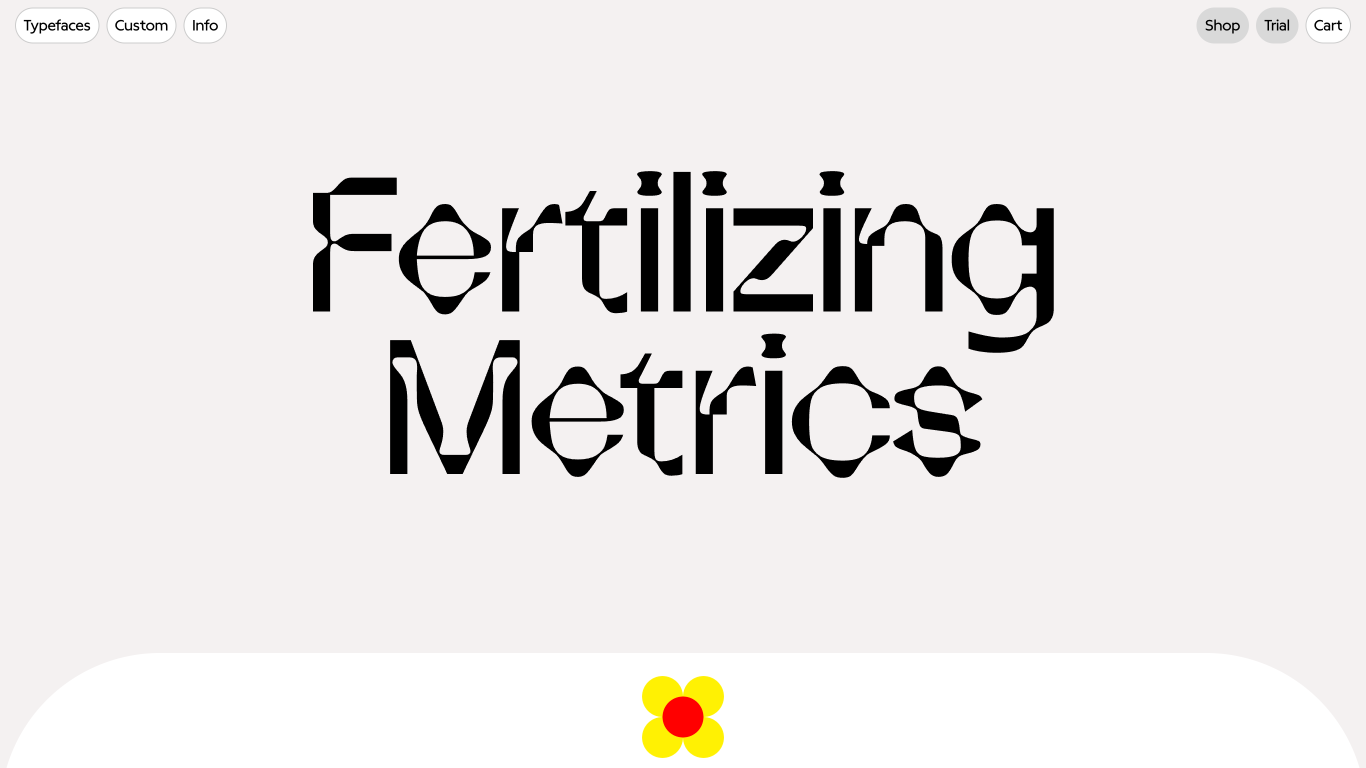
Bloom Type Foundry
Sweden
2021
Bloom Type is a flourishing type foundry based in Stockholm, founded by Baptiste Guesnon. They specialize in creating retail and custom typefaces, logos, design tools, animations, and interactive typographic experiences. Notable typefaces include 'Akke', a serif family inspired by Akke Kumlien's 1943 design, and 'Knopp', a curvy and expressive typeface capturing the beauty of nature and the excitement of spring.